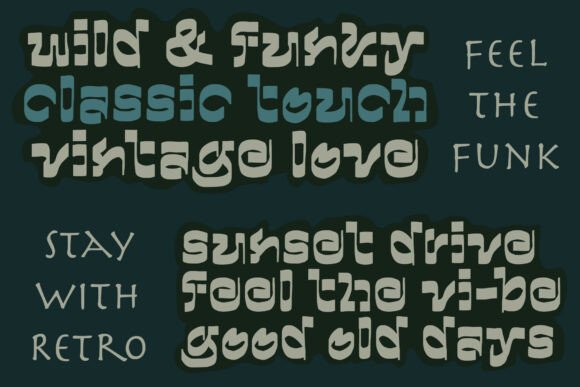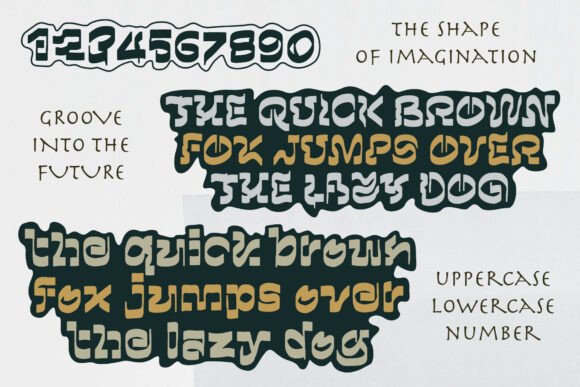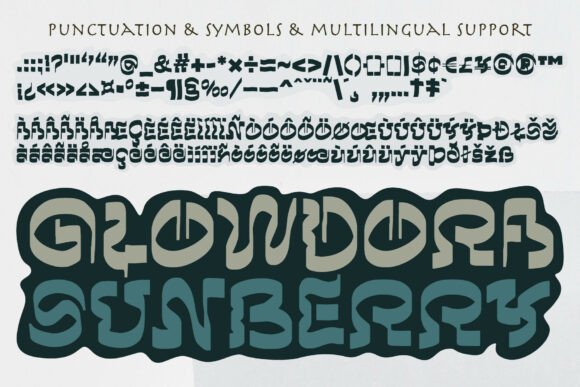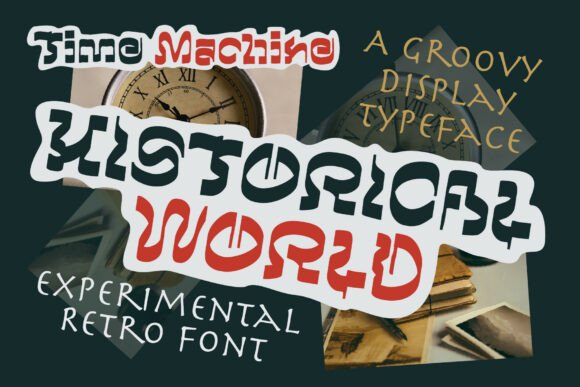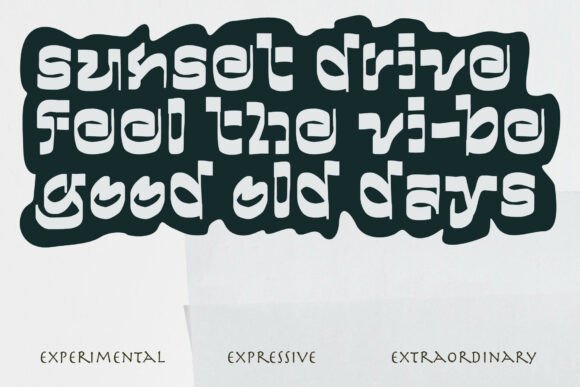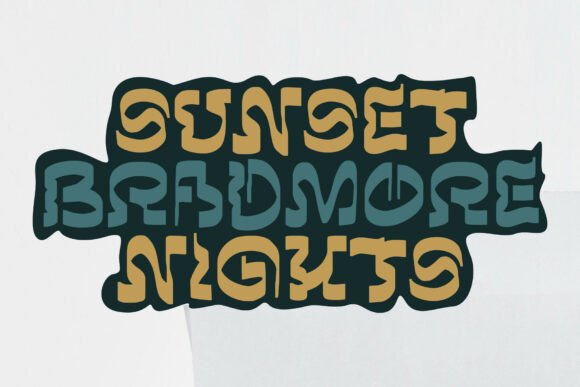
Introducing Glowdora Sunberry: The Ultimate Retro-Modern Display Font
Are you tired of using the same old fonts in your designs? Look no further than Glowdora Sunberry, an experimental retro decorative display font that’s sure to take your visual creations to the next level. This bold, playful, and uniquely shaped font blends vintage spirit with a modern creative edge, making it perfect for designers and crafters looking to add a distinctive touch to their work.
The Retro-Modern Vibe of Glowdora Sunberry
Glowdora Sunberry is a font that’s deeply rooted in retro typography, yet still looks fresh and contemporary. Its letterforms are inspired by the classic designs of the past, but with a modern twist that makes them stand out in any visual composition. Whether you’re working on a logo, poster, branding project, or social media graphic, this font is sure to bring a nostalgic feel that’s both fun and sophisticated.
Glowdora Sunberry is a versatile font that’s perfect for a wide range of creative projects. Its bold, playful, and expressive shapes make it ideal for:
- Logos and branding: Create a memorable brand identity with a font that’s both unique and attention-grabbing.
- Posters and flyers: Add a pop of personality to your print materials with a font that’s sure to stand out.
- Packaging and merchandise: Give your products a distinctive look that sets them apart from the competition.
- Music covers and social media graphics: Add a touch of retro flair to your digital creations.
Key Features of Glowdora Sunberry
So what makes Glowdora Sunberry such a unique and valuable font? Here are just a few of its key features:
- Retro-modern vibe: A perfect blend of vintage spirit and modern creative edge.
- Bold and playful: Unique letterforms that are sure to grab attention.
- Expressive shapes: Fun, groovy, and artistic personality that’s perfect for creative projects.
- Versatile: Suitable for a wide range of design applications, from digital to print.
Why Choose Glowdora Sunberry?
With so many fonts to choose from, why should you choose Glowdora Sunberry? Here are just a few reasons why this font stands out from the crowd:
- Unique personality: Glowdora Sunberry has a distinctive character that’s sure to set your designs apart.
- High-quality design: Professionally crafted letterforms that are both beautiful and functional.
- Retro-modern appeal: A font that’s both nostalgic and contemporary, making it perfect for a wide range of design projects.
Using Glowdora Sunberry in Your Designs
So how can you start using Glowdora Sunberry in your designs? Here are a few tips to get you started:
- Experiment with different sizes: Glowdora Sunberry looks great in large display sizes, but it’s also effective in smaller sizes.
- Play with color: This font looks great in a wide range of colors, from bold and bright to pastel and subtle.
- Combine with other fonts: Glowdora Sunberry pairs well with a wide range of fonts, from modern sans-serifs to vintage-inspired scripts.
Glowdora Sunberry is a unique and versatile font that’s perfect for designers and crafters looking to add a touch of retro-modern flair to their work. With its bold, playful, and expressive shapes, this font is sure to grab attention and leave a lasting impression. Whether you’re working on a logo, poster, branding project, or social media graphic, Glowdora Sunberry is a great choice for anyone looking to add a distinctive touch to their designs.